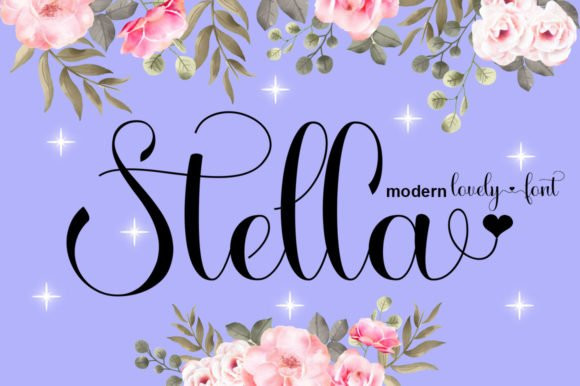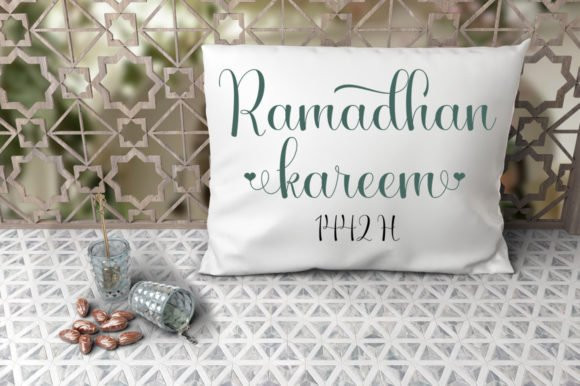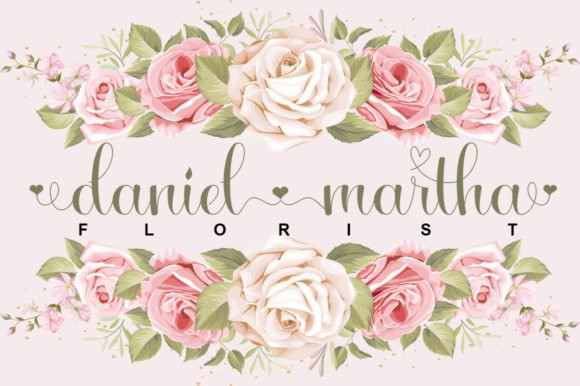
Stella Font
StellaStella is beautiful and lovely script font with many alternative styles, ligatures, swash and multilingual glyphs. This font is PUA encoded which means you can access all of the glyphs and swashes with ease!
Stella can be used for wide ranges of application, such as wedding designs, logos, posters, invitations, social media posts, and so much more.